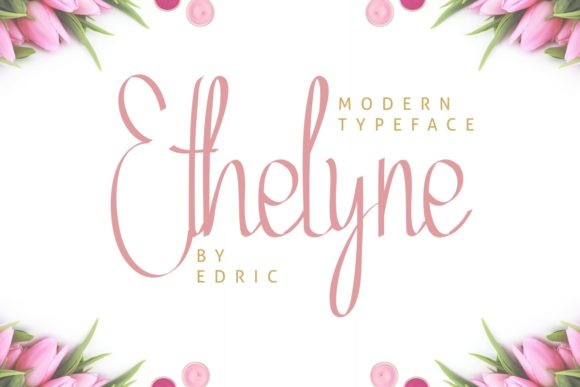
Ethelyne Font
Ethelyne Font is perfect for vintage wedding invitations, antique boutique branding, nostalgic greeting cards, classic literature publications, heritage family materials, timeless fashion campaigns, elegant stationery designs, traditional tea room signage, vintage-inspired beauty products, and refined historical celebrations.
What makes Ethelyne Font so exciting is its extraordinary ability to capture the timeless grace and gentle sophistication of bygone eras through letterforms that seem to whisper stories of elegant ladies and refined social gatherings from a more gracious time. This enchanting typeface embodies the essence of vintage femininity and classical elegance with characters that radiate the warmth, dignity, and sophisticated charm that defined an era when handwritten correspondence was an art form. The font's nostalgic design elements perfectly balance historical authenticity with contemporary usability, creating an indispensable tool that communicates vintage sophistication, timeless elegance, and refined femininity, making it essential for brands and projects that celebrate the enduring beauty of classical feminine grace and vintage charm.
Ethelyne Font comes in multiple font families including Regular, Bold, Light, Italic, Bold Italic, Vintage, Classic, and Elegant variations. Each family member maintains the core nostalgic characteristics while offering different sophistication levels and stylistic approaches to suit various vintage and heritage design requirements.
The vintage precision in Ethelyne Font makes it particularly effective for heritage brands and nostalgic celebrations where conveying authentic historical charm and timeless feminine elegance is crucial for connecting with audiences who appreciate genuine vintage aesthetics and classical refinement. Its graceful letterforms work beautifully across both traditional print applications and contemporary digital platforms, maintaining consistent vintage appeal and sophisticated presentation.
Heritage branding professionals appreciate how Ethelyne Font transforms ordinary communications into elegant expressions of vintage sophistication and timeless feminine grace. The typeface's nostalgic character set includes special vintage symbols, classical decorative elements, and heritage features that enhance the overall vintage atmosphere of any historically-inspired project.
For creative professionals serving vintage fashion, heritage celebrations, and nostalgic lifestyle brands, Ethelyne Font serves as the perfect foundation for establishing memorable visual identities that capture the essential qualities of vintage elegance, classical femininity, and timeless sophistication that define successful brands celebrating the enduring beauty and refined grace of classical eras when elegance was a way of life.